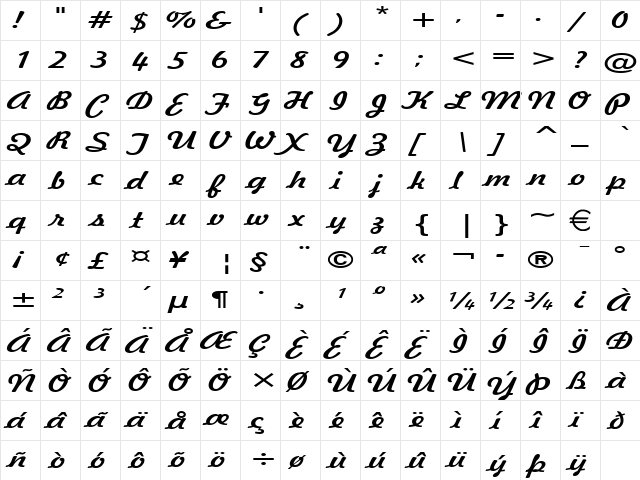
JotsExtended Normal Font Preview
JotsExtended Normal
Design Context for JotsExtended Typeface
JotsExtended is a composed and adaptable typeface that performs quietly and consistently across a wide range of design contexts.